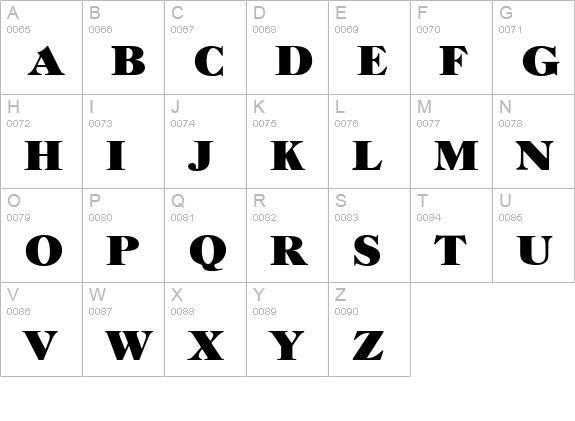
HorshamSerial-Heavy-Regular is a heavy, high-impact variant in the HorshamSerial typeface family \xE2\x80\x94 well suited to high-impact headlines, posters, and display advertising.
HorshamSerial-Heavy-Regular is a stunning and bold font that exudes strength and sophistication. With its clean lines and elegant curves, this font is perfect for making a bold statement in your design projects. Whether you're creating eye-catching headlines or designing impactful logos, HorshamSerial-Heavy-Regular is sure to command attention. The best part? HorshamSerial-Heavy-Regular is available for free download at FontsMarket.com. This means you can easily add this versatile font to your collection without breaking the bank. Don't miss out on the opportunity to enhance your designs with the timeless appeal of HorshamSerial-Heavy-Regular. Download it today and take your creative projects to the next level!